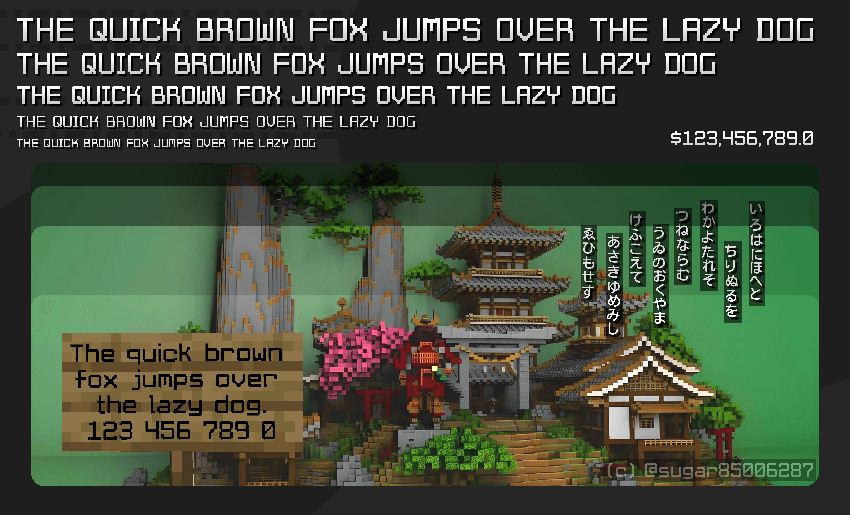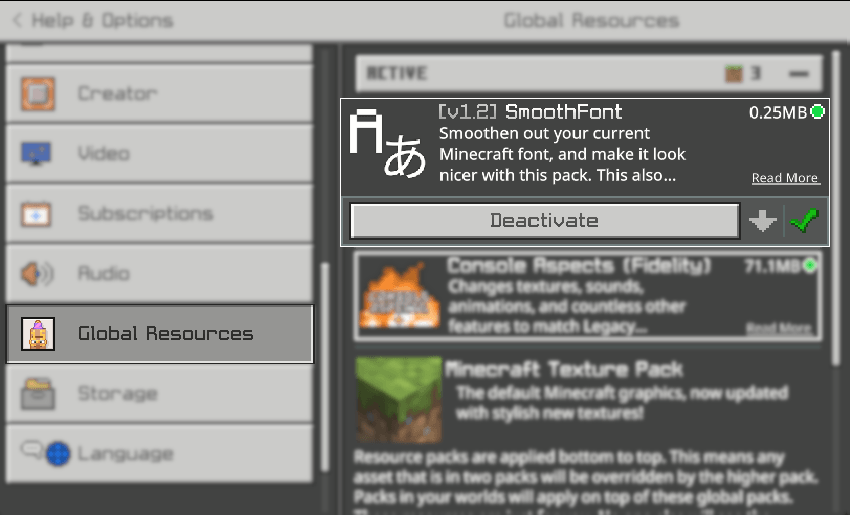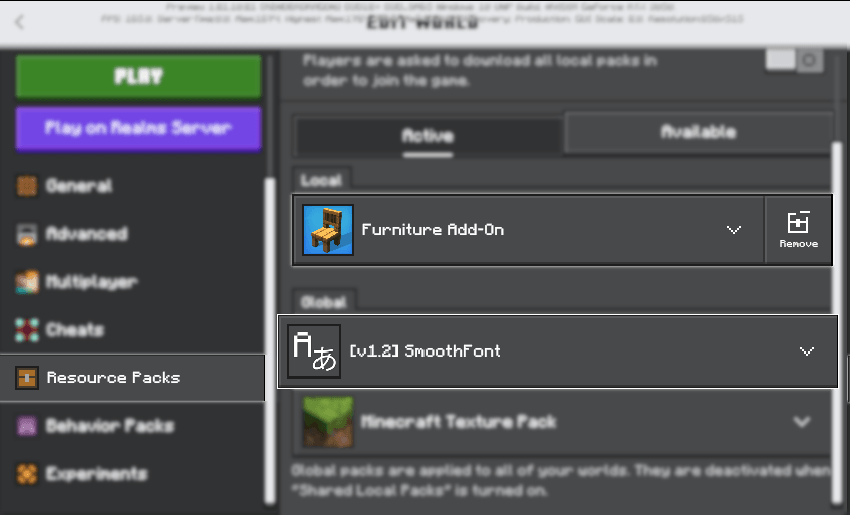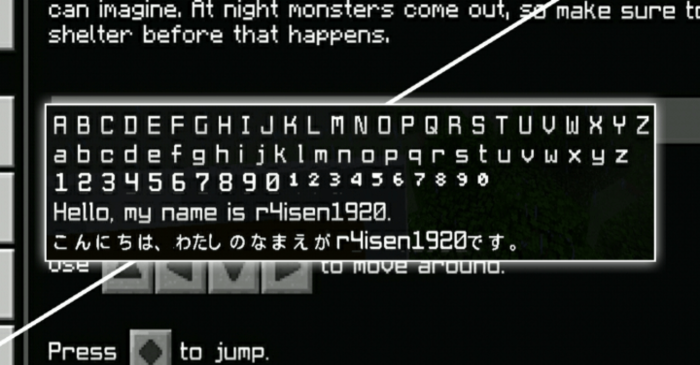
Smooth Font Addon (1.20) – MCPE/Bedrock Mod
After years of seeing text in a single Minecraft font, a little change can be refreshing. Smooth Font Addon replaces the old blocky Minecraft font with a new, higher-resolution one. This font complements the game and works well with other texture packs. Remember to apply it in the global resources section for maximum impact. It’s compatible with all texture packs except those with custom fonts.